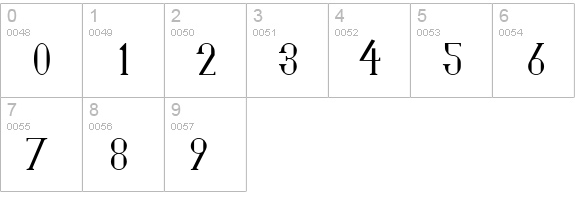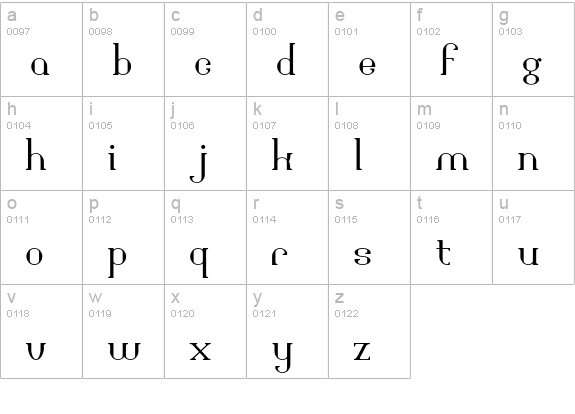
Bridgework Font Details
Bridgework font is a beautifully crafted typeface that exudes elegance and sophistication. With its unique blend of modern and classic elements, this font is perfect for adding a touch of refinement to any design project. The clean lines and stylish curves of Bridgework font make it versatile and suitable for a wide range of applications, from branding to editorial design. And the best part? Bridgework font is available for free download at FontsMarket.com. This means you can easily access this stunning font and use it in your projects without any cost. Don't miss out on the opportunity to enhance your designs with the timeless beauty of Bridgework font. Download it today and elevate your creative work to new heights.